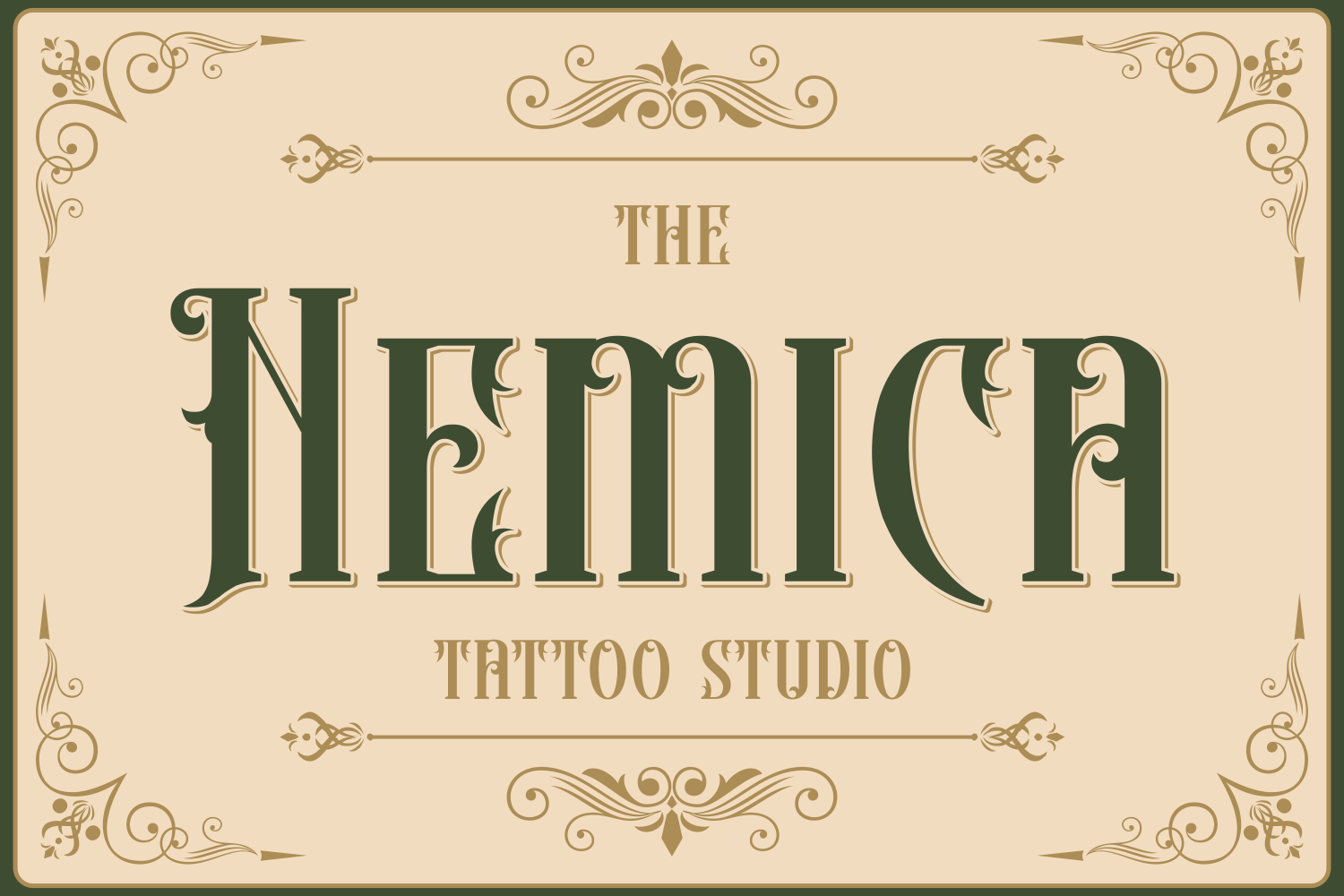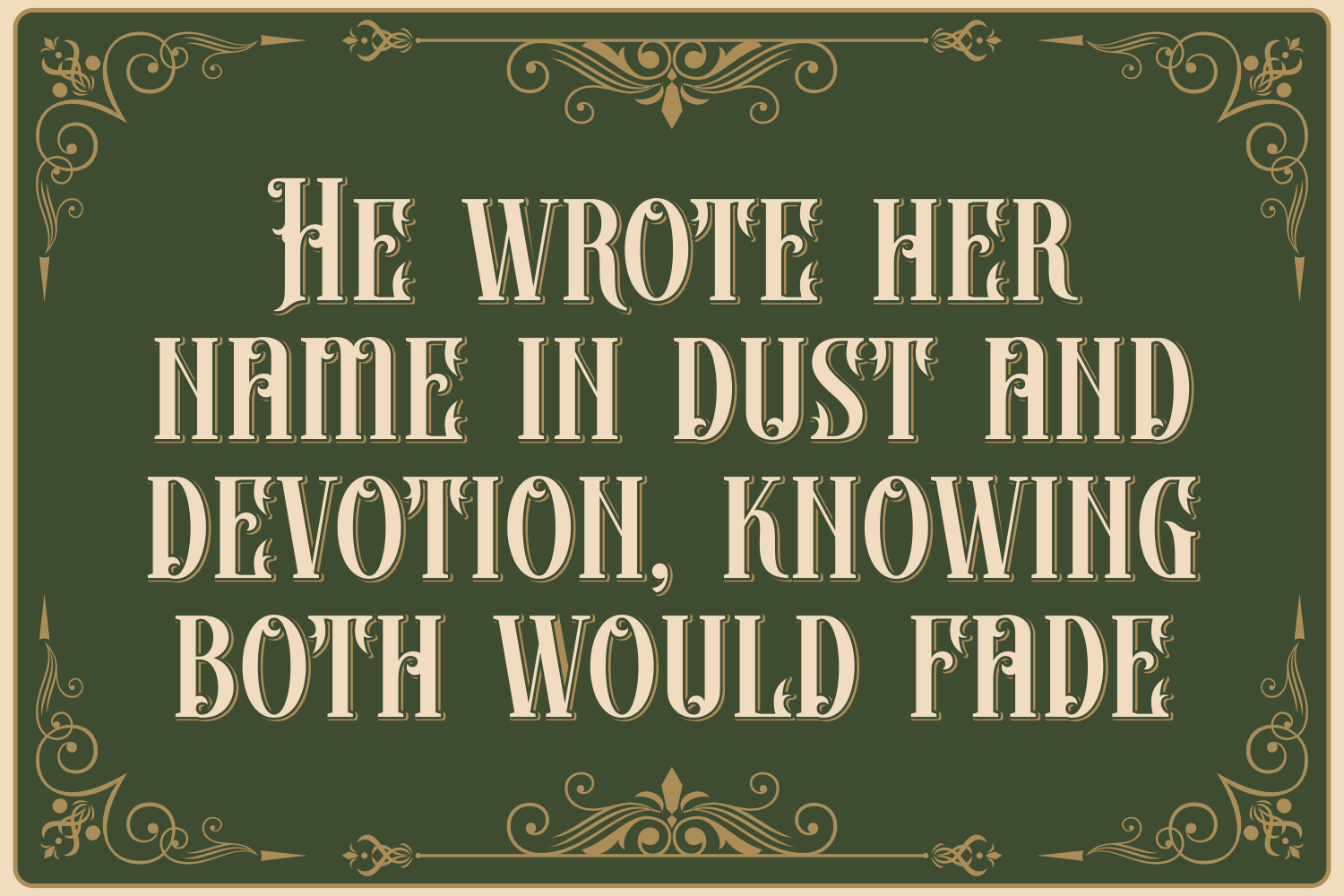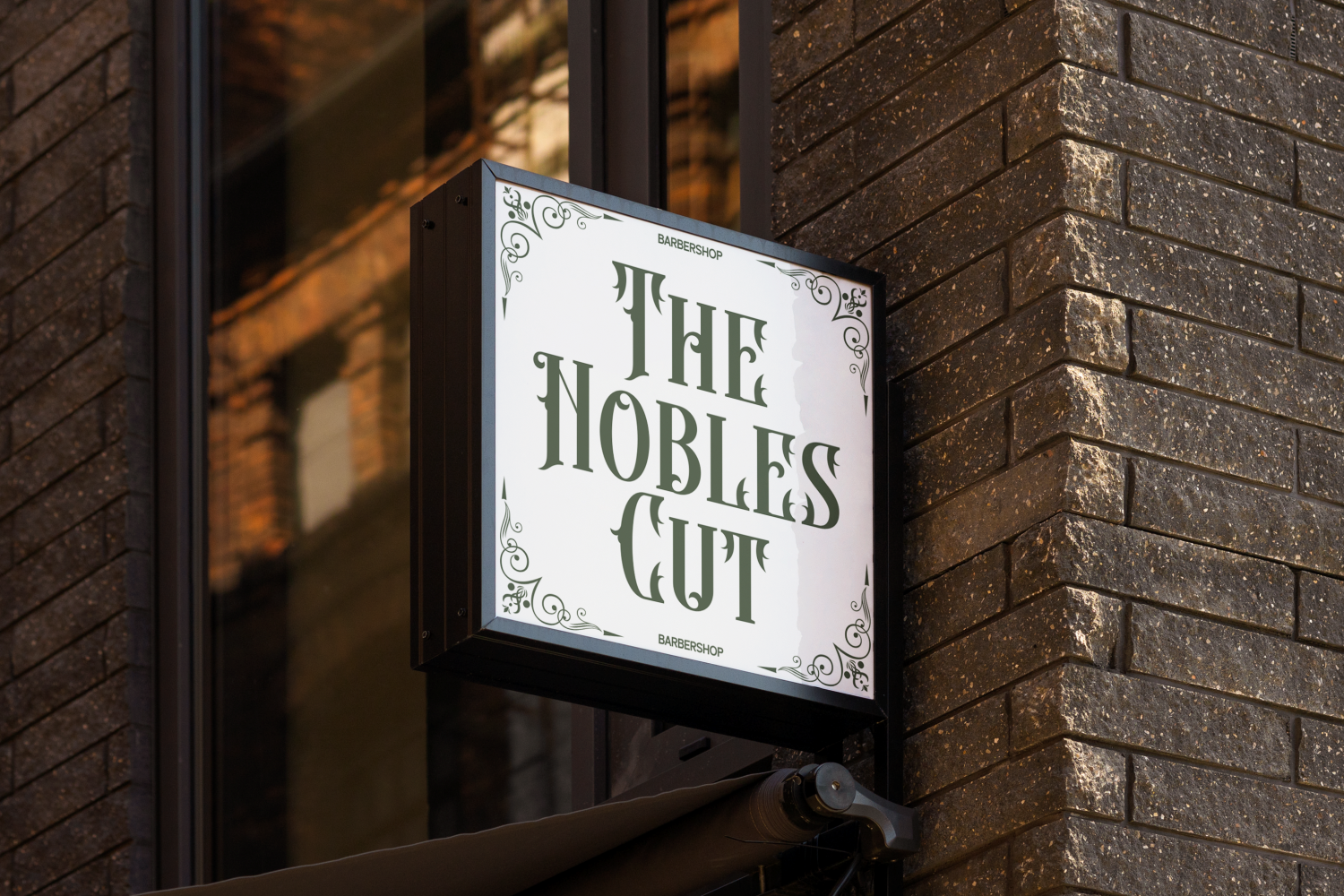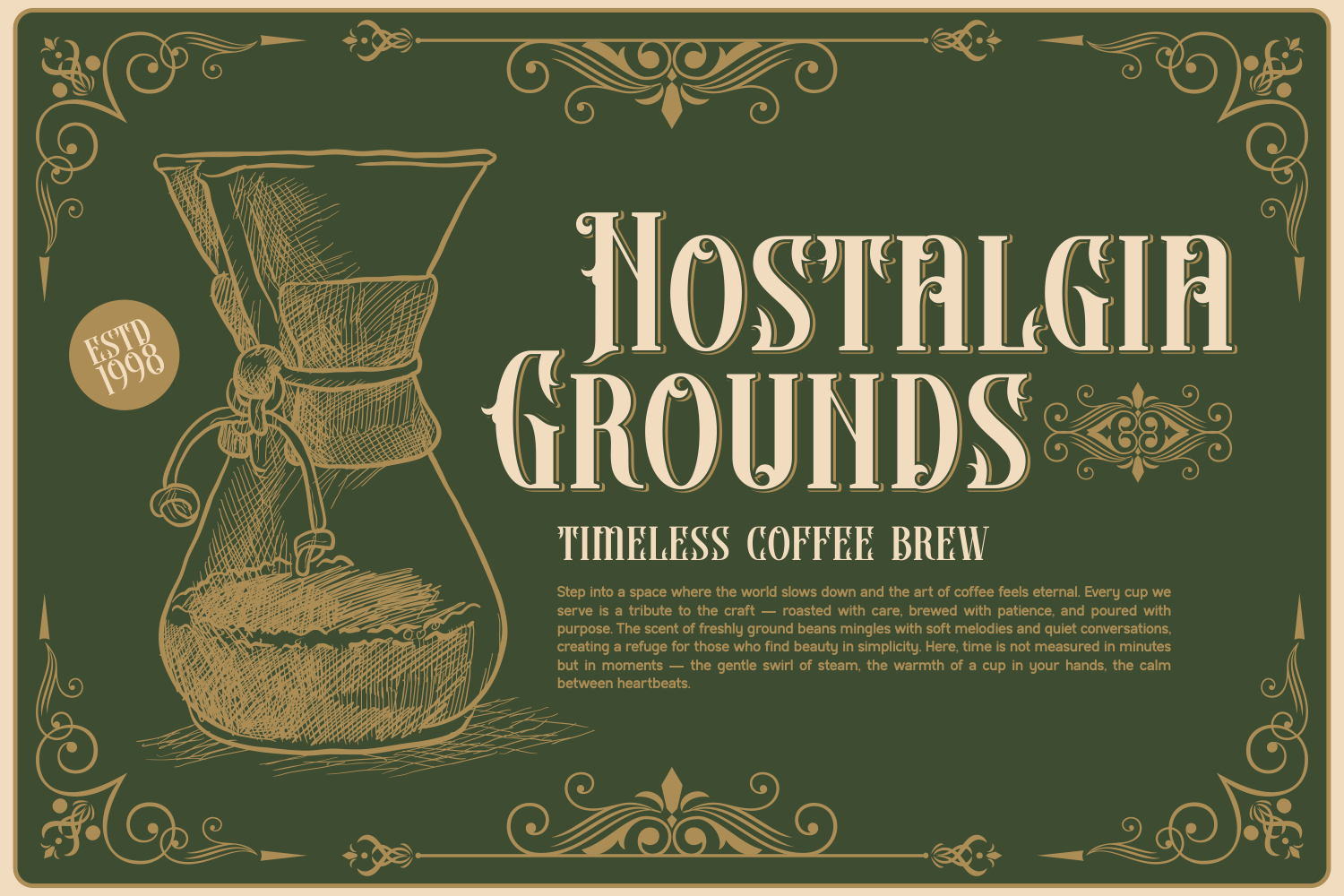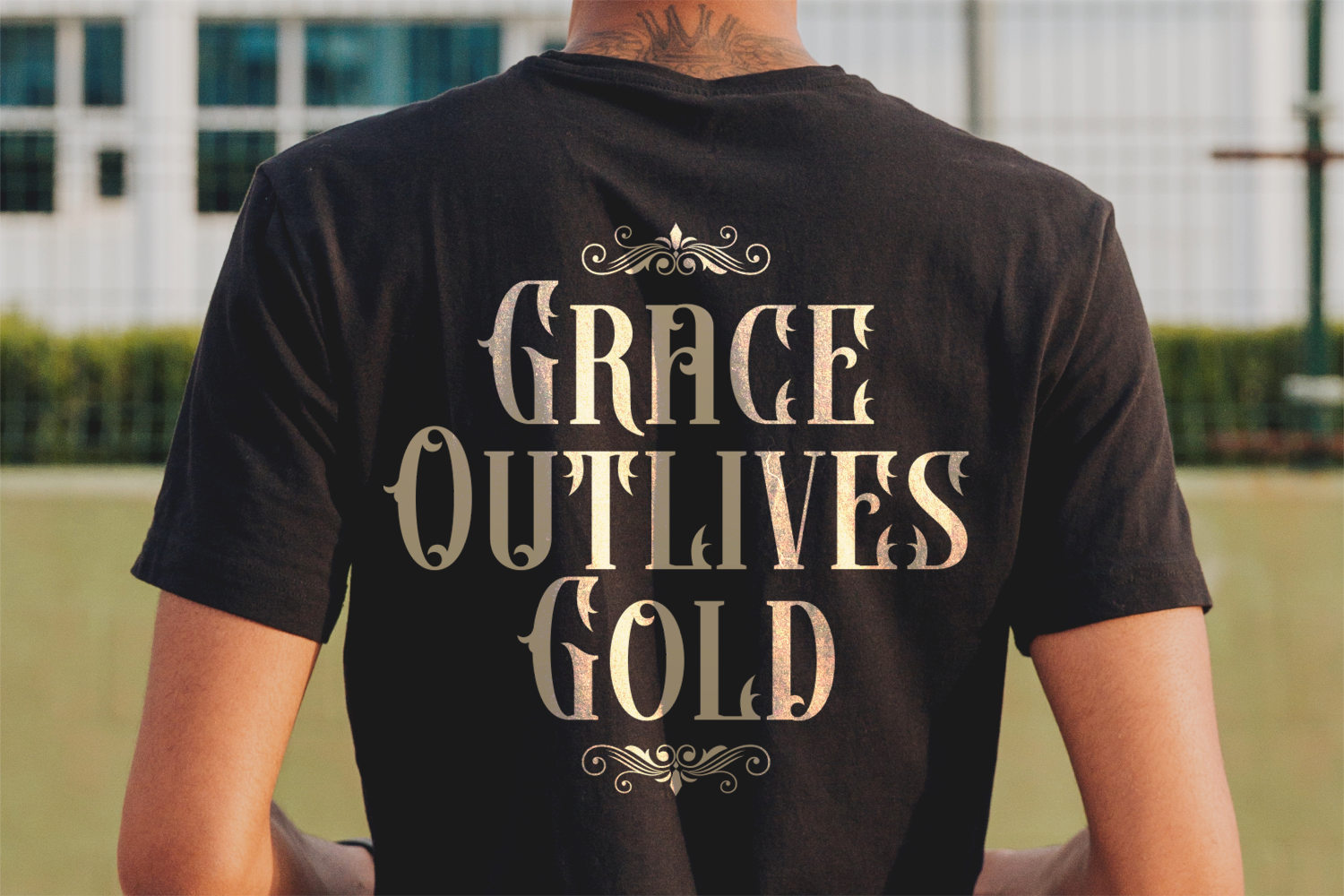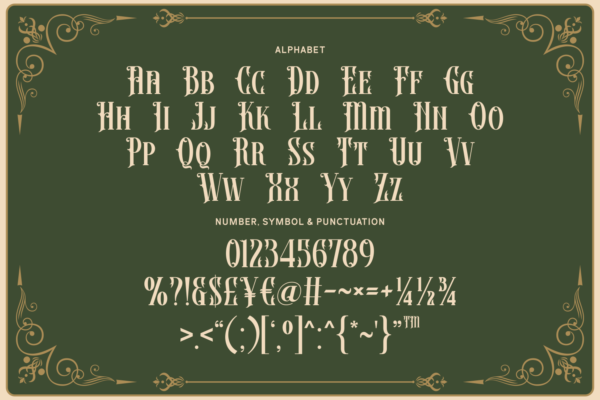
Introducing Heboric – Victorian Serif Font
Heboric is a decorative serif font with a vintage look, built from tall capital letters, curved edges, separate serifs, and ornamental cuts.